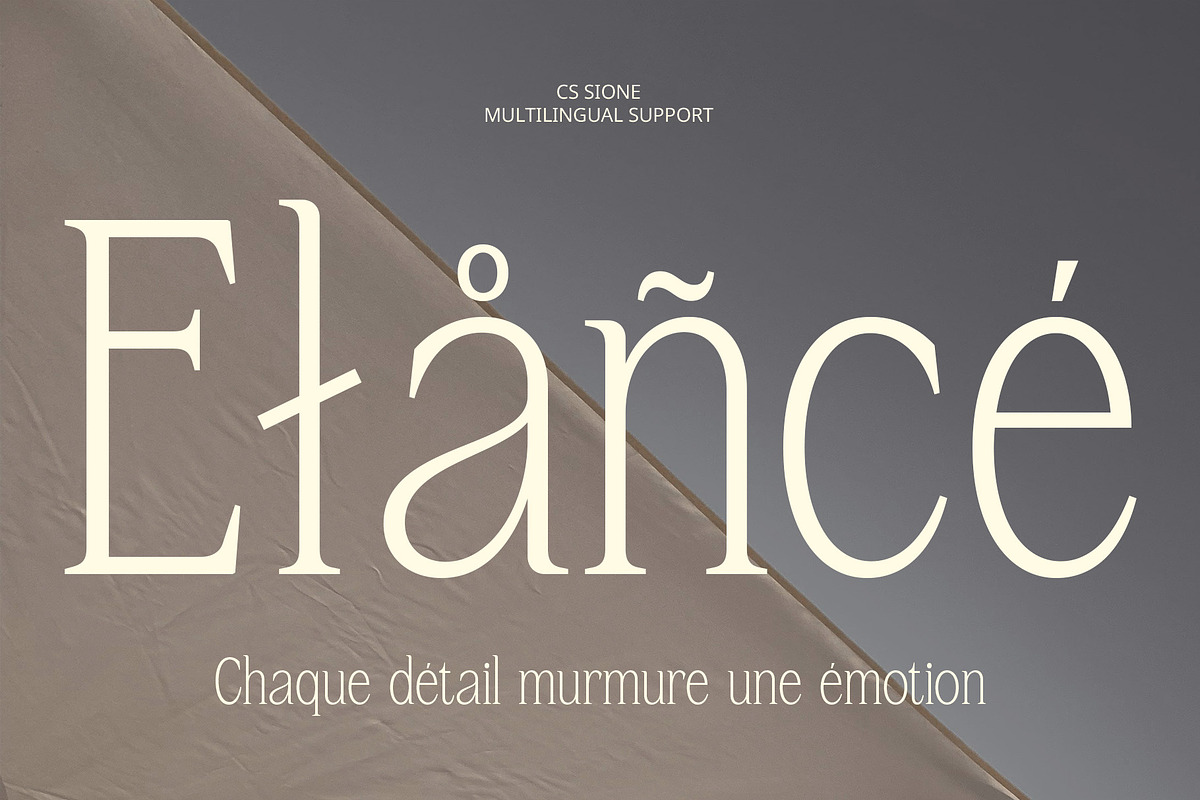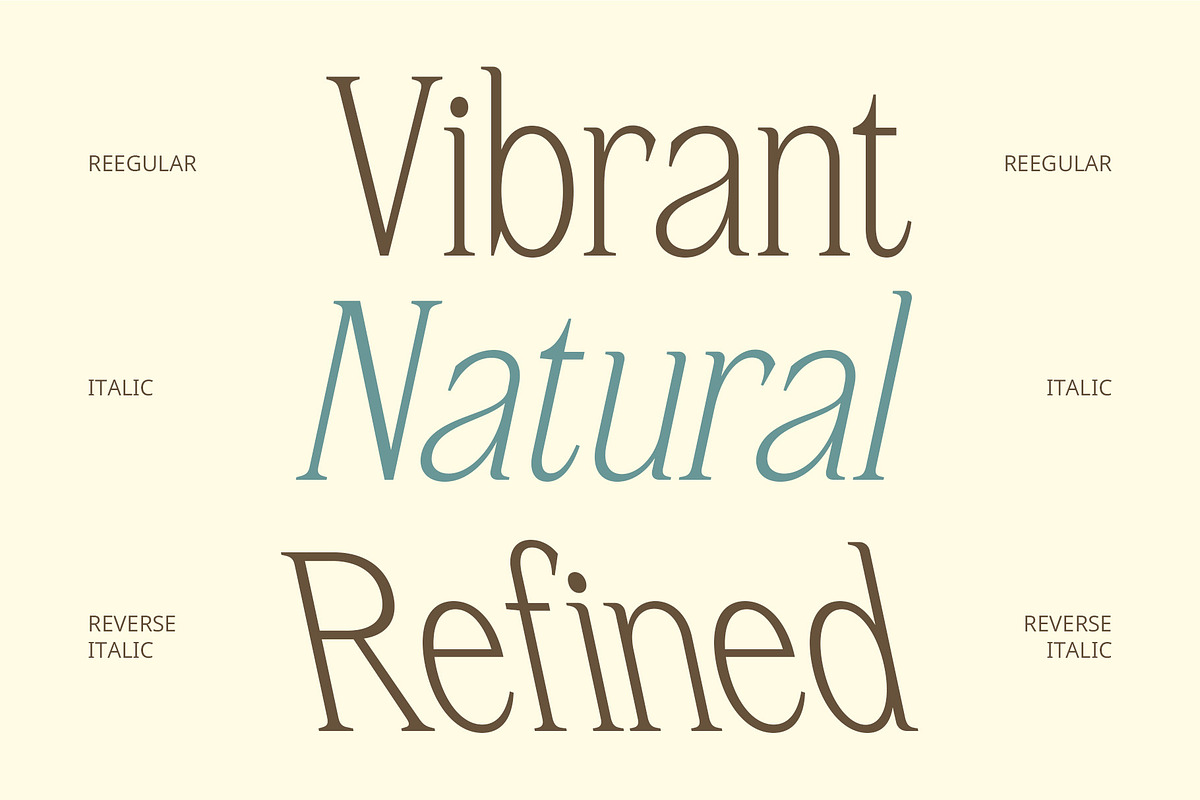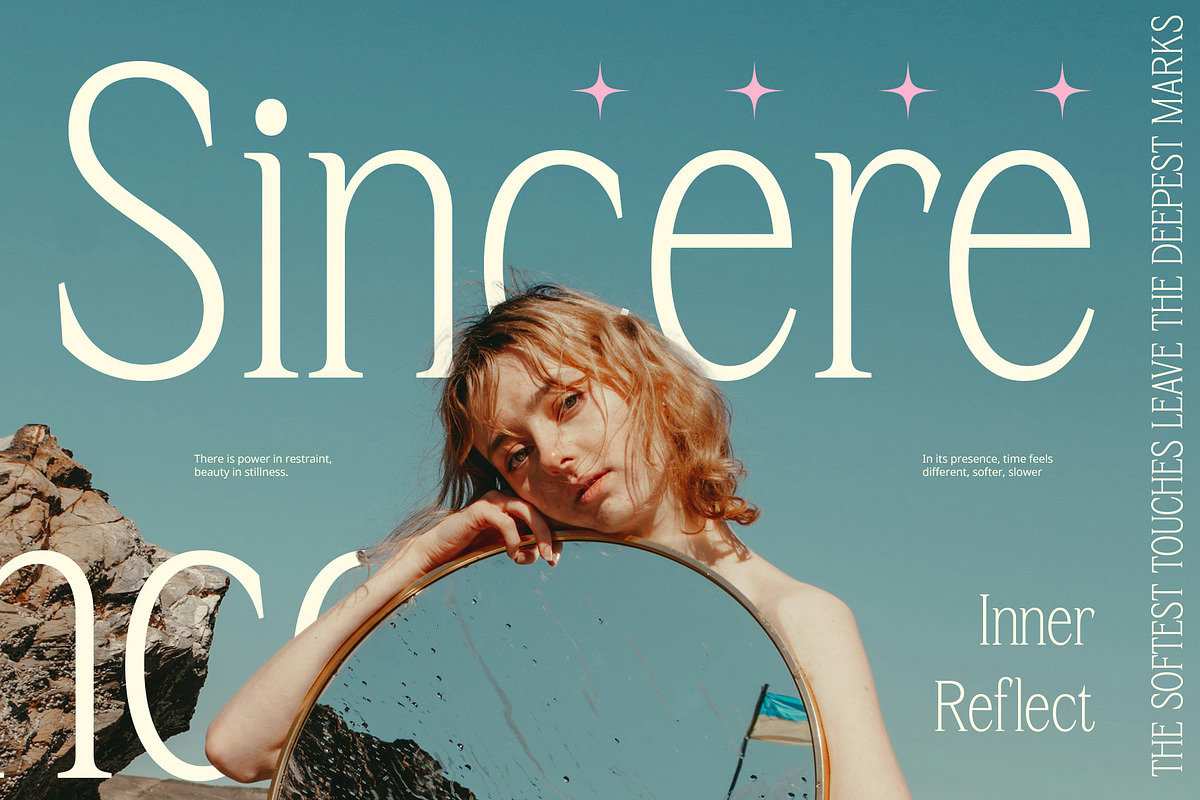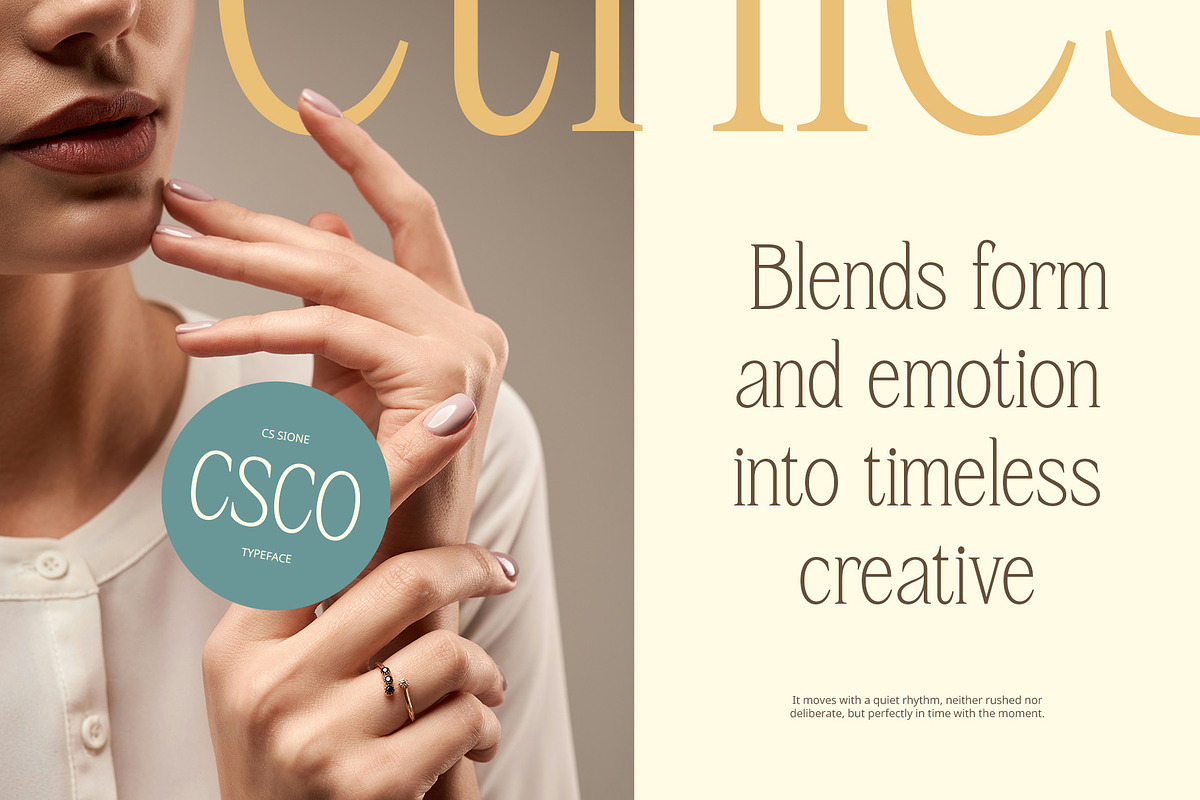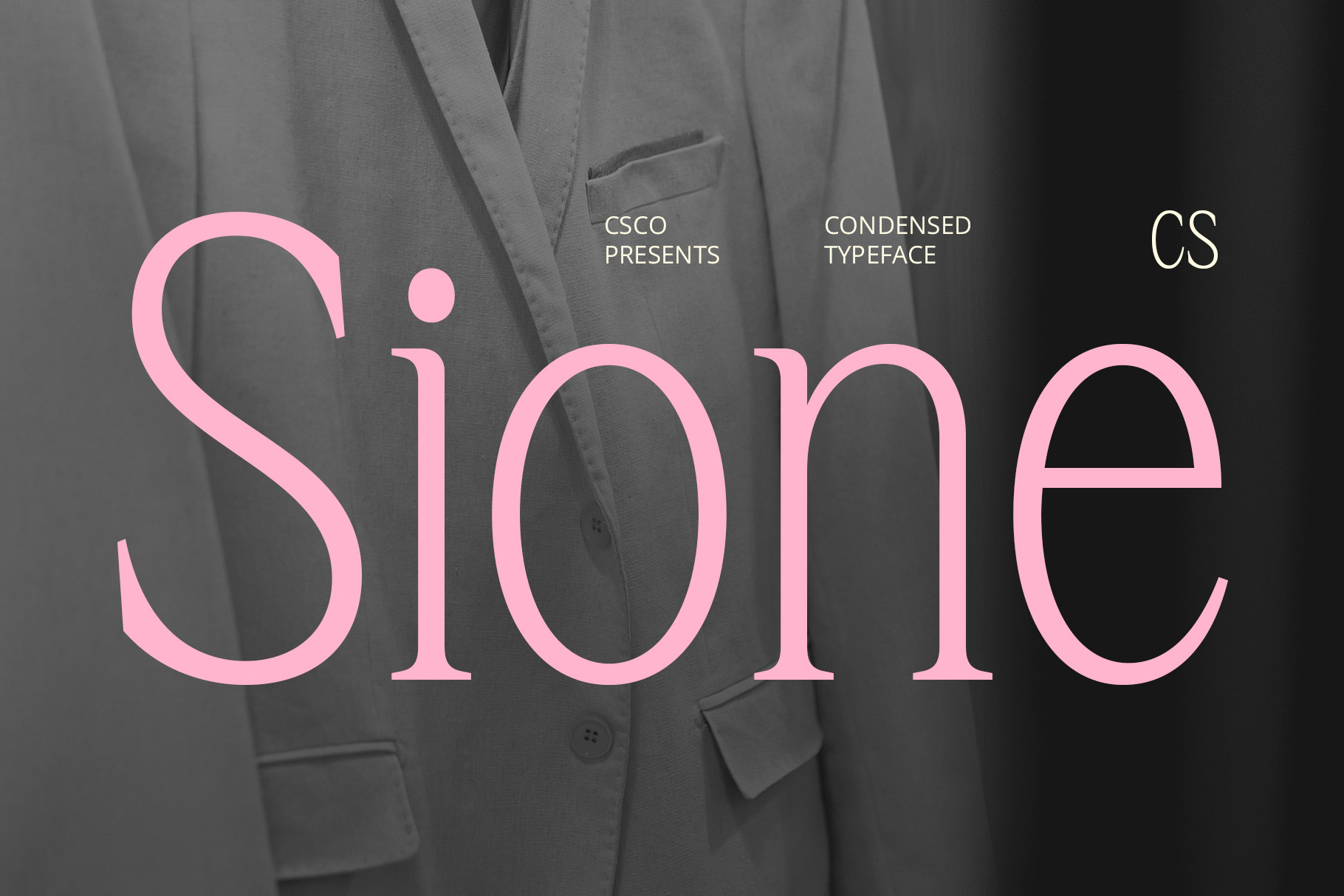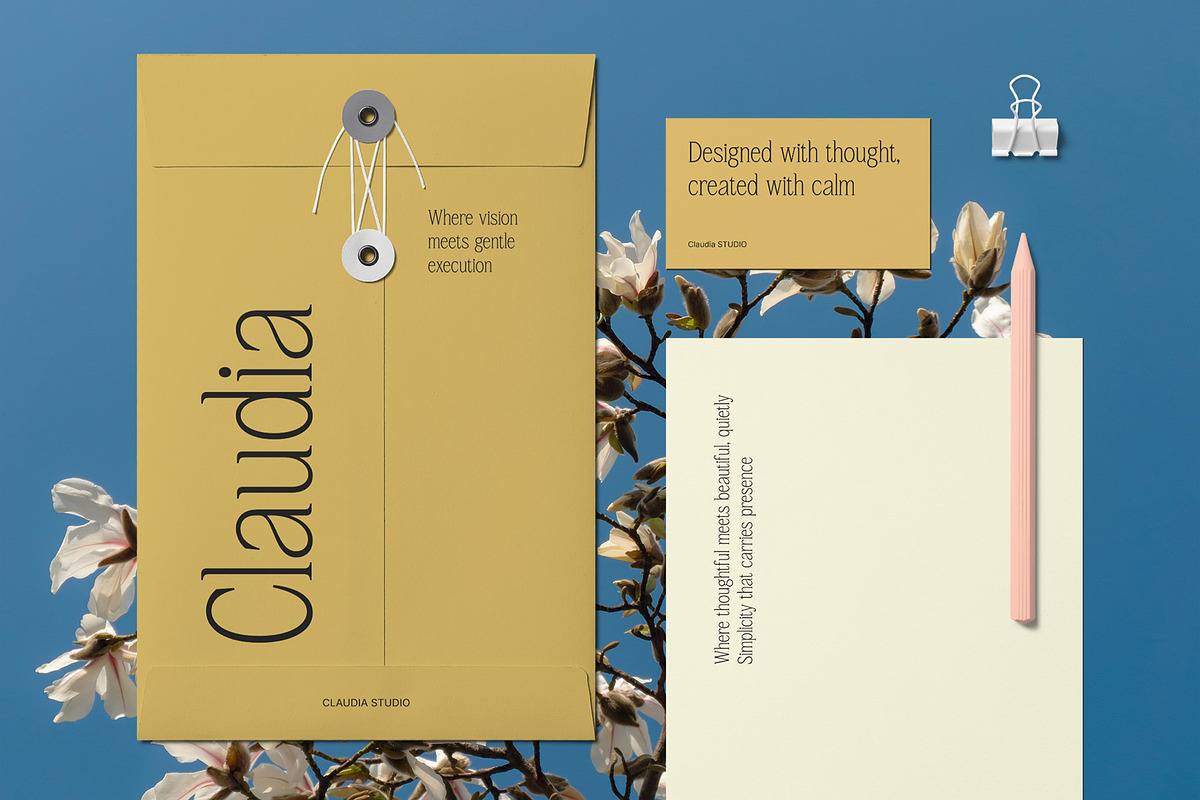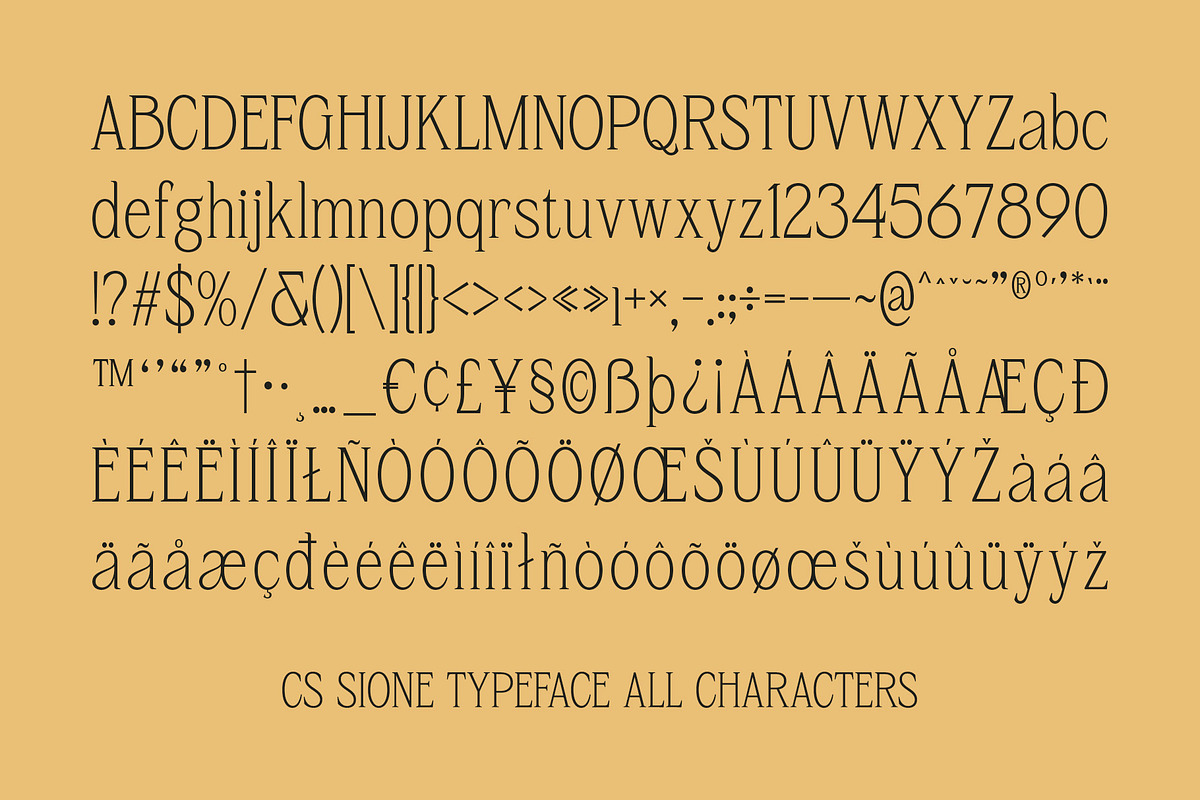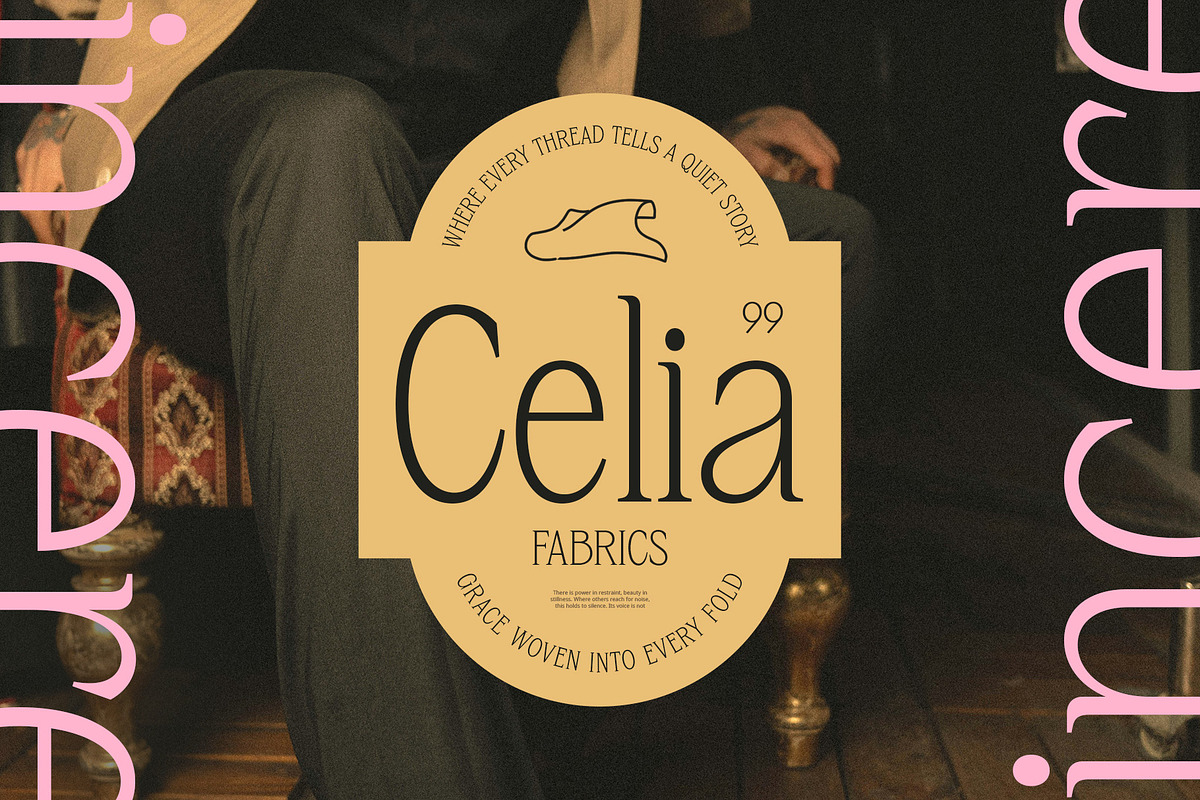
CS Sione – Condensed Font
CS Sione – Condensed Font: Elegance in Minimalist Design
Sleek and Slim for Maximum Efficiency CS Sione is a modern serif font that features a condensed, minimalist design, combining clean, slim lines with a professional structure. Its compressed form maximizes space efficiency, allowing it to shine in both large and small text applications while maintaining optimal readability.
Timeless Elegance with a Contemporary Touch With its sophisticated, organized design, CS Sione effortlessly blends elegance with contemporary style. The slender lines and timeless serif details create a look that is both refined and modern, making it perfect for upscale applications.
Ideal for Corporate Branding and Professional Identities This font’s clean, slim silhouette and subtle luxury make it an excellent choice for corporate branding, premium publications, and high-end professional identities. Its sleek design ensures that it complements any project requiring a balance of aesthetic appeal and functionality.
A Refined Balance of Aesthetics and Practicality CS Sione strikes the ideal balance between style and efficiency, offering a versatile solution for designs that demand both elegance and clarity. Perfect for corporate logos, websites, editorial layouts, and more, this font excels in projects where sophistication and professionalism are key.
- CS Sione Regular
- CS Sione Italic
- CS Sione Reverse Italic